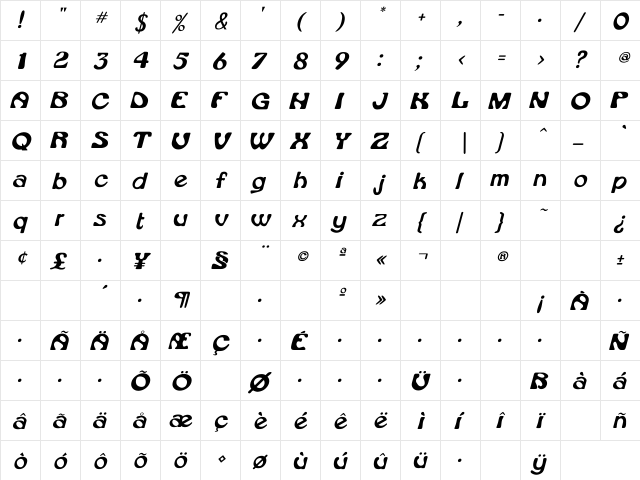
Rsdaytona Italic Italic
Design Context for Rsdaytona Italic Typeface
Rsdaytona Italic is a composed and adaptable typeface that performs quietly and consistently across a wide range of design contexts. Its italic angle brings a sense of urgency and motion to the letterforms.
Pro Tip: Use Rsdaytona Italic for emphasis, pull quotes, and subheadings where its slanted energy can add rhythm to the layout.